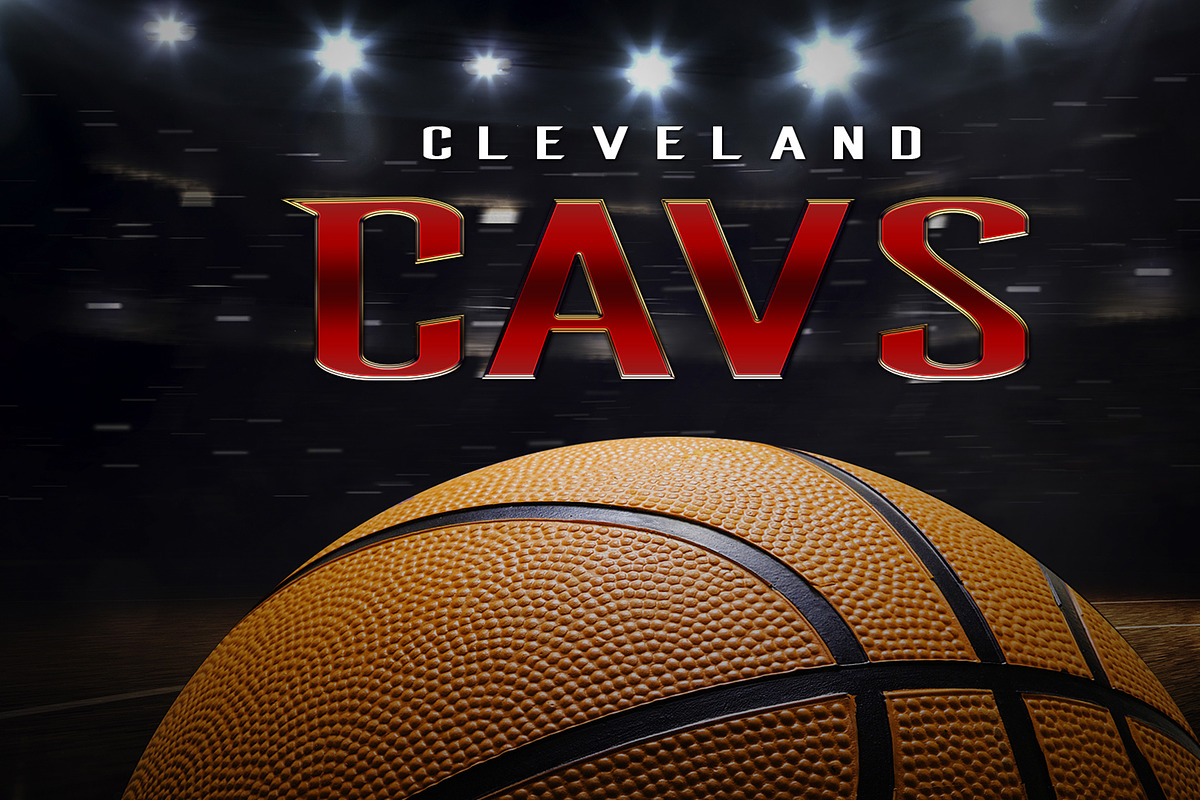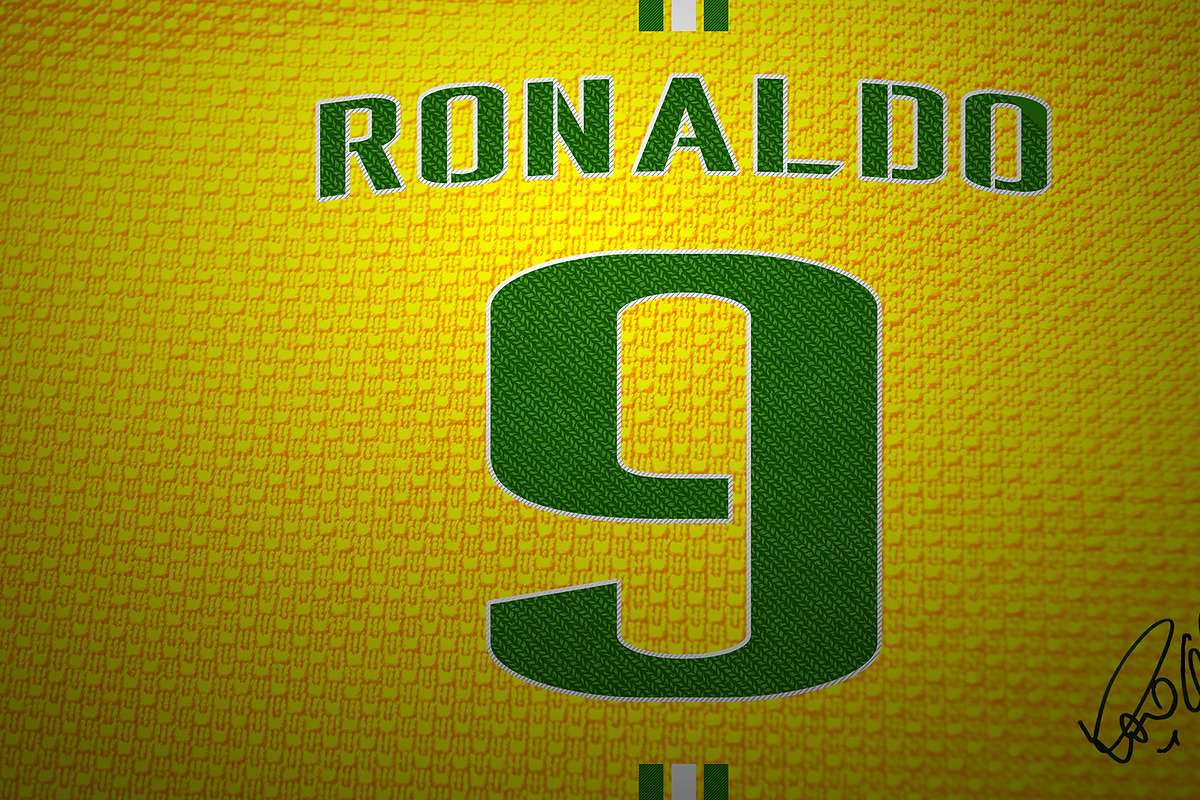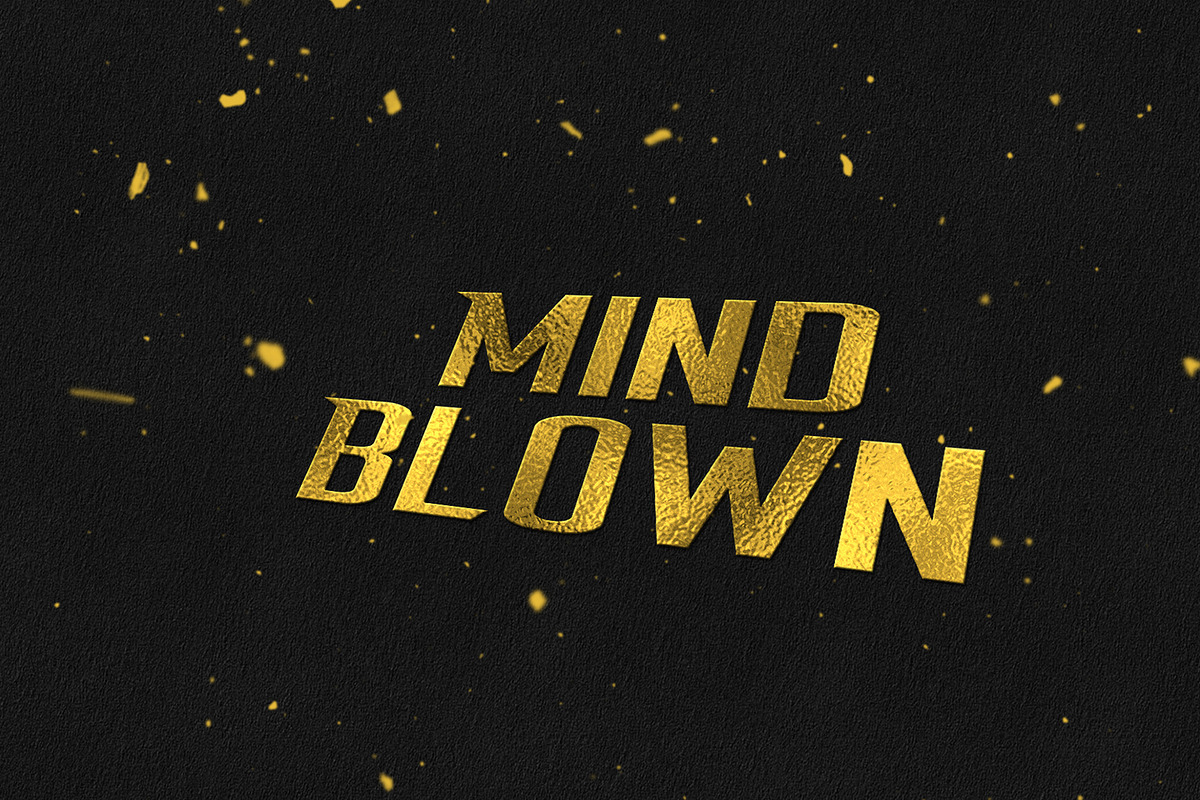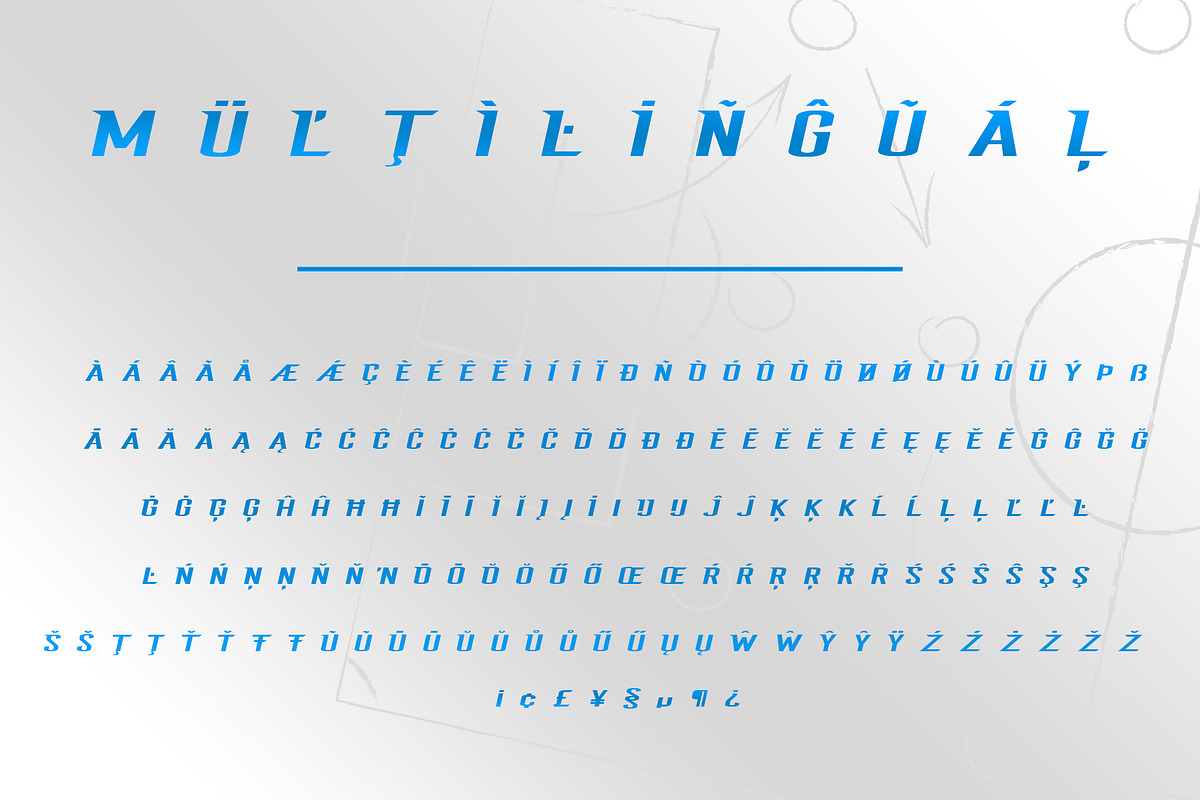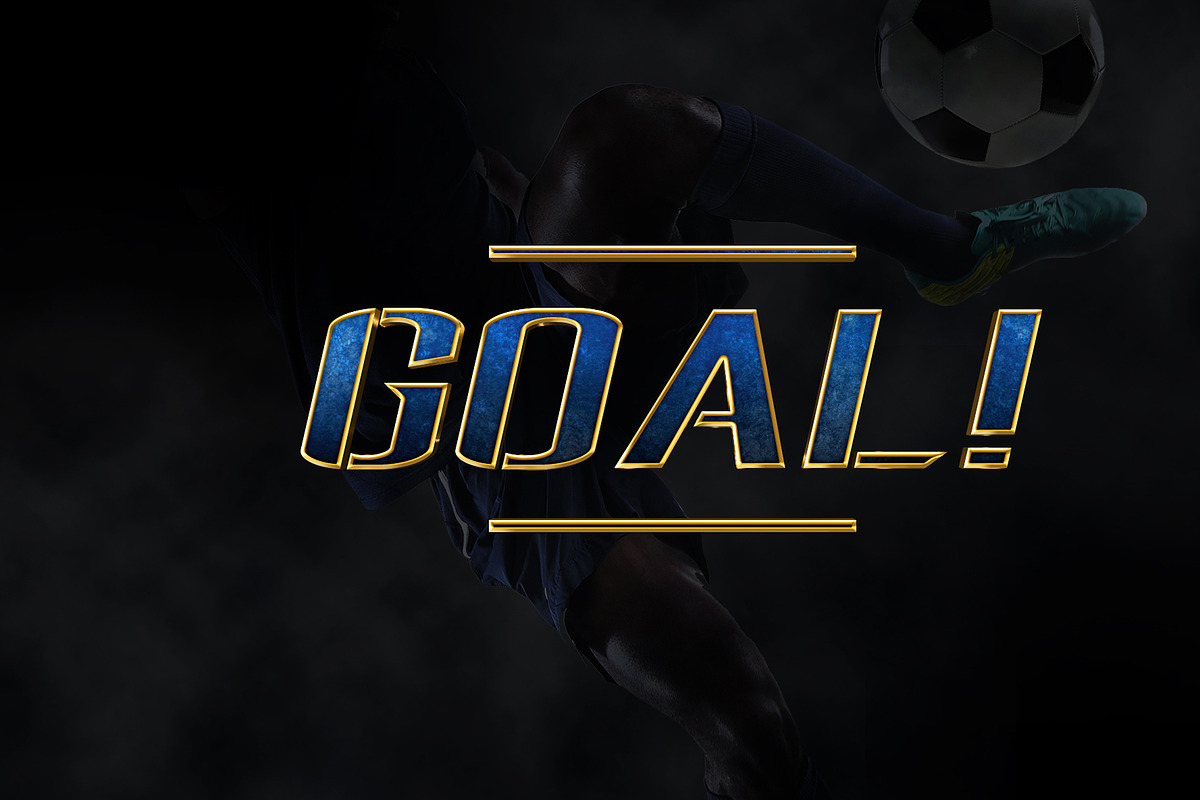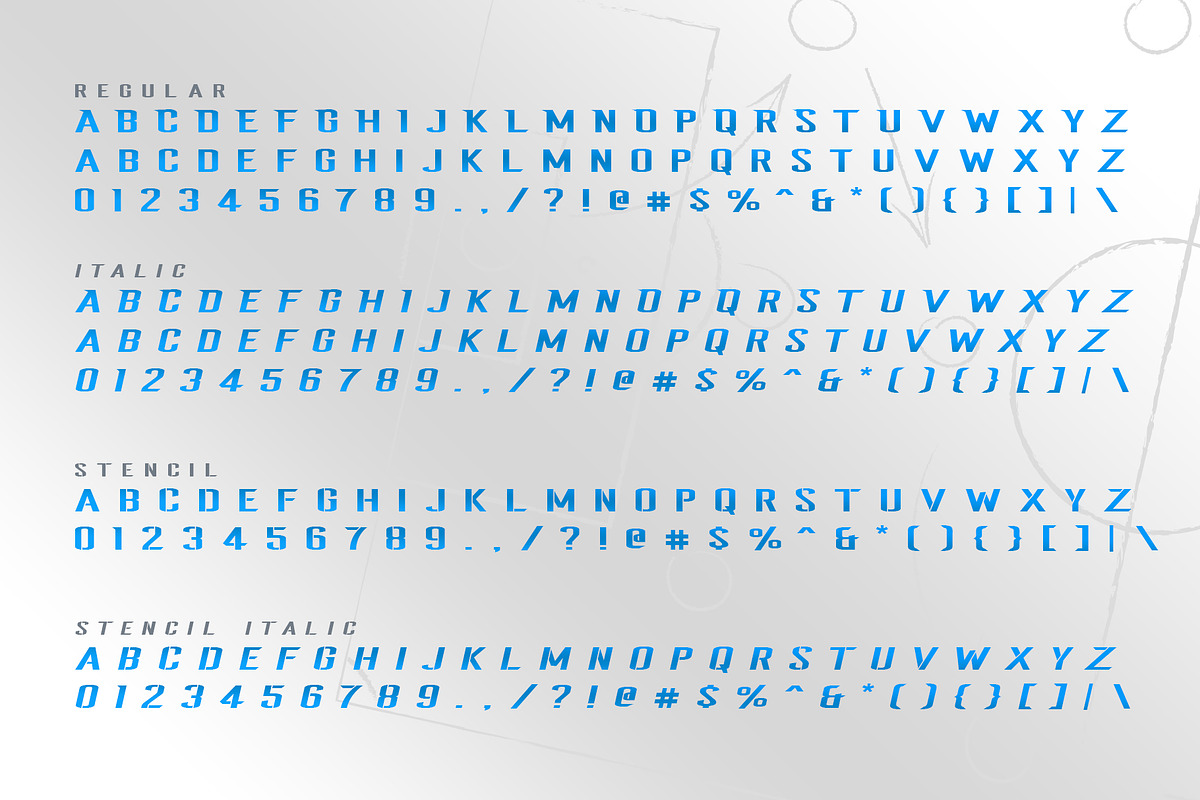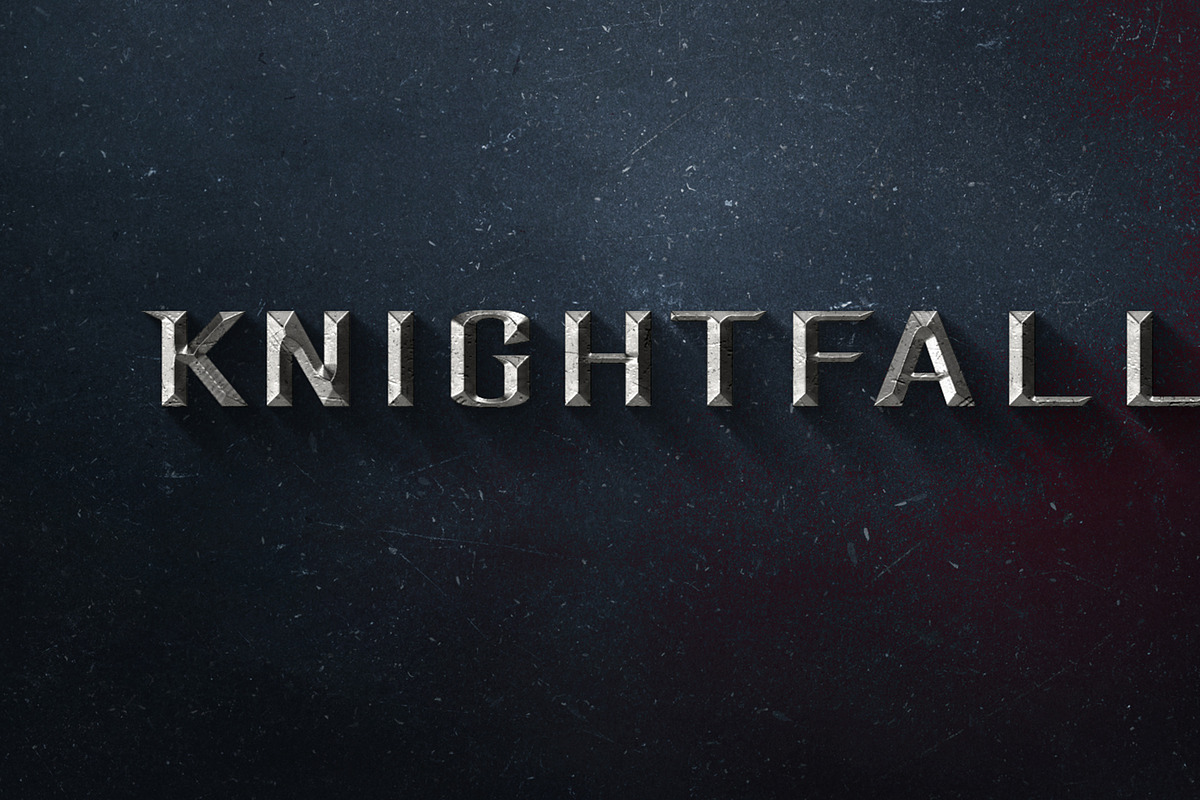
League Sport Typeface
League is a new sport font with 4 styles and 800+ glyphs.
Inspired by world class athletes, this font displays speed, angle, and showmanship. League Typeface is versatile and perfect for any design (Logo Design, Sports Design, Team Brand Identities, Video Editing, Jersey Design, Flyers, Posters, Headlines, Performance Products, etc.)
Uppercase, Lowercase/Alt Letters, Multi Language Glyphs, Numbers, Symbols, and Punctuation included.
- LEAGUE TYPEFACE
- LEAGUE ITALIC TYPEFACE
- LEAGUE STENCIL TYPEFACE
- LEAGUE STENCIL ITALIC TYPEFACE